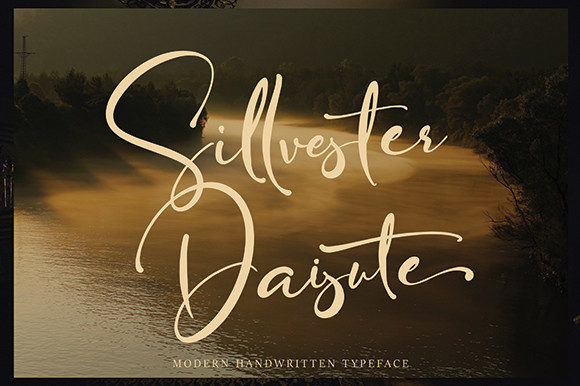
Introducing the Sillvester Daisute Font, a thin lettered and graceful script font that will enchant you with its ravishing style. Created by the talented Pineungtype & Missinklab, this font is a masterpiece of digital calligraphy, designed to bring elegance and sophistication to your creative projects.
With its flowing curves, delicate strokes, and captivating swashes, the Sillvester Daisute Font is ideal for creating stunning logos, eye-catching invitations, heartfelt greeting cards, and personalized branding materials. Its PUA encoding ensures effortless access to a wide range of glyphs and swashes, empowering you to add a touch of magic to your designs.
Step into a world of creative possibilities with the Sillvester Daisute Font. Its enchanting style will transform your words into works of art, captivating your audience and leaving a lasting impression. Whether you're a seasoned designer or just starting your creative journey, this font is your passport to creating designs that speak volumes.
Indulge in the beauty of the Sillvester Daisute Font, a font that embodies grace, elegance, and timeless appeal. Its versatility knows no bounds, making it the perfect choice for a wide range of projects, from wedding invitations to fashion branding. Let your imagination soar as you explore the endless possibilities that await you with this breathtaking script font.
Don't settle for ordinary fonts; embrace the extraordinary with the Sillvester Daisute Font. Its thin lettered design dances across the page, adding a touch of sophistication and charm to every word. With its PUA encoding, unleashing the full potential of this font is a breeze, allowing you to incorporate stunning swashes and glyphs into your designs with effortless ease.